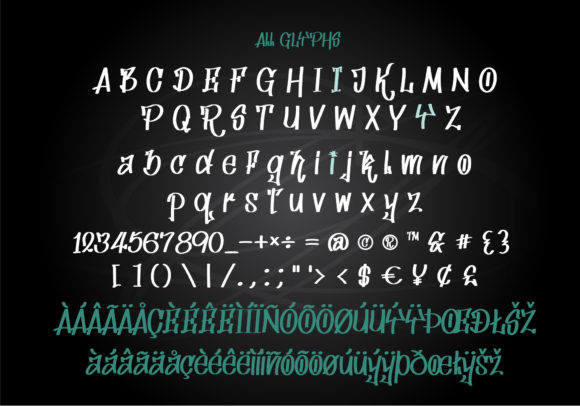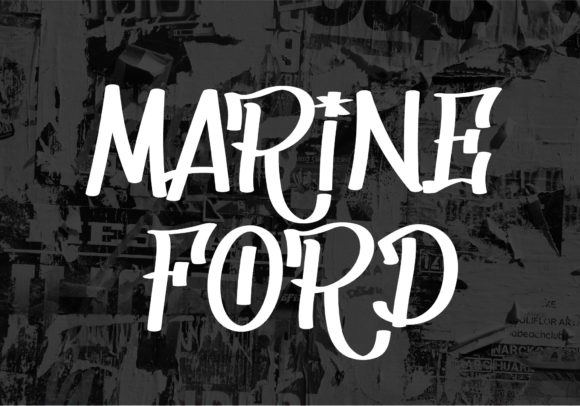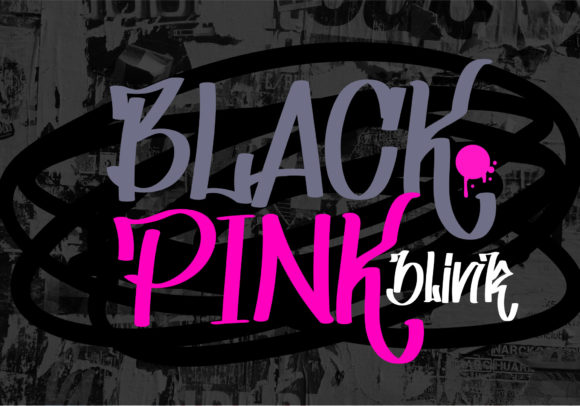
Crash Font
Crash is an awesome, graffiti-style display font that has a street art vibe. This font is suitable for designs such as t-shirts, sportswear, logos, advertisements, clothing, and more.